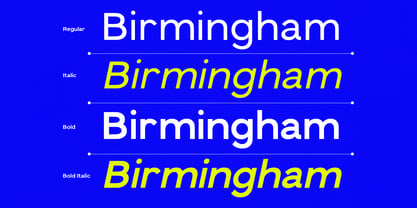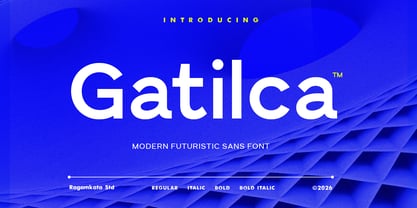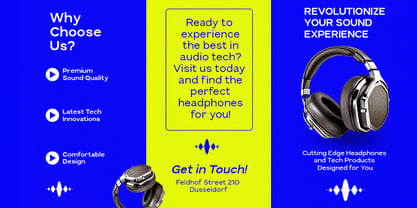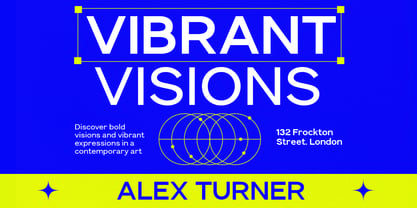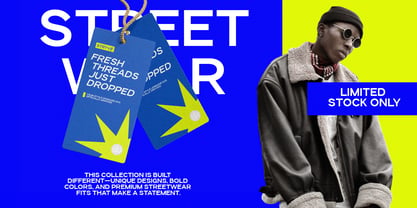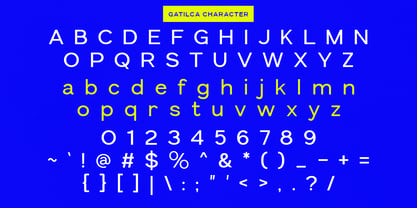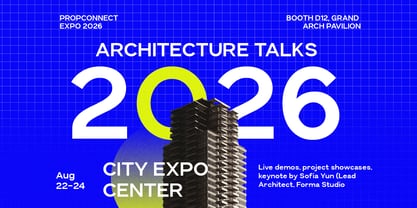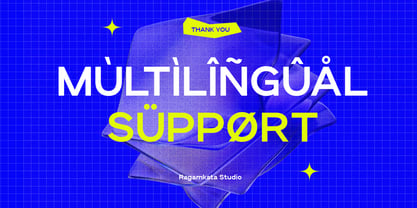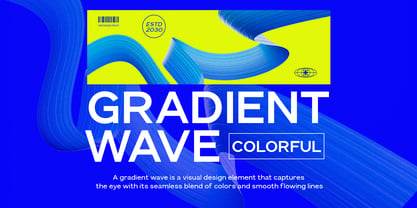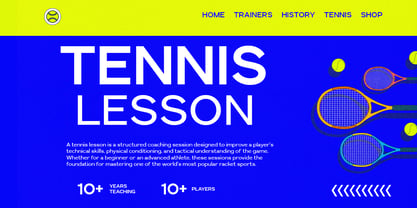
Gatilca
by RagamKata
The Gatilca Font Family was designed by Yogiswhara Dio Prakoso Riadi and published by RagamKata. Gatilca contains 4 styles and family package options. More about this family
Gatilca is a modern, futuristic sans-serif font crafted to provide a clean, innovative, and forward-thinking visual identity. Featuring a sleek geometric structure, balanced proportions, and contemporary letterforms, Gatilca exudes a strong modern aesthetic that is both professional and cutting-edge. Its minimalist design ensures versatility while preserving a distinctive futuristic character. Ideal for technology branding, startup identities, digital interfaces, gaming graphics, and modern advertising, Gatilca offers a bold typographic presence that excels in both digital and print media. The font's clean shapes and modern rhythm make it perfect for logos, headlines, posters, UI design, and futuristic visual concepts. Whether utilized by tech companies, innovation brands, modern websites, or digital product campaigns, Gatilca empowers designers to create sleek and impactful designs. This font harmoniously blends simplicity with a futuristic style, delivering typography that feels modern, powerful, and highly adaptable to contemporary design needs.
Designers: Yogiswhara Dio Prakoso Riadi
Foundry: RagamKata